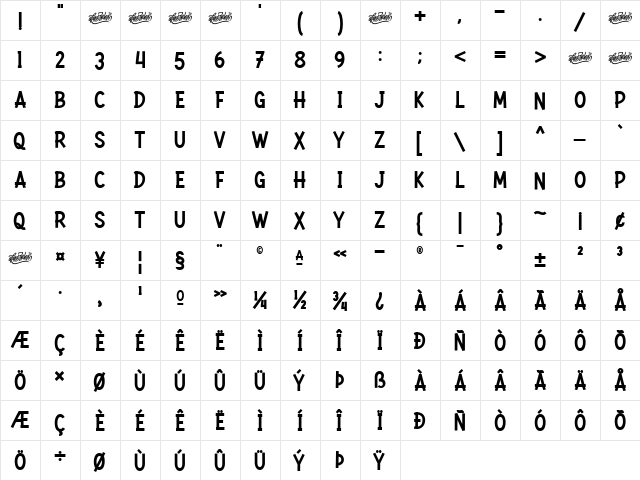
Rockbitz Regular Font Preview
Rockbitz Regular
Rockbitz Regular Font Details
| Foundry | Aditypotypea |
| Designer | Almarkhatype 2020 | Abdul Malik |
Design Context for Rockbitz Typeface
Rockbitz takes a measured approach to typography — its balanced proportions and neutral character make it a reliable workhorse for both digital and print work.